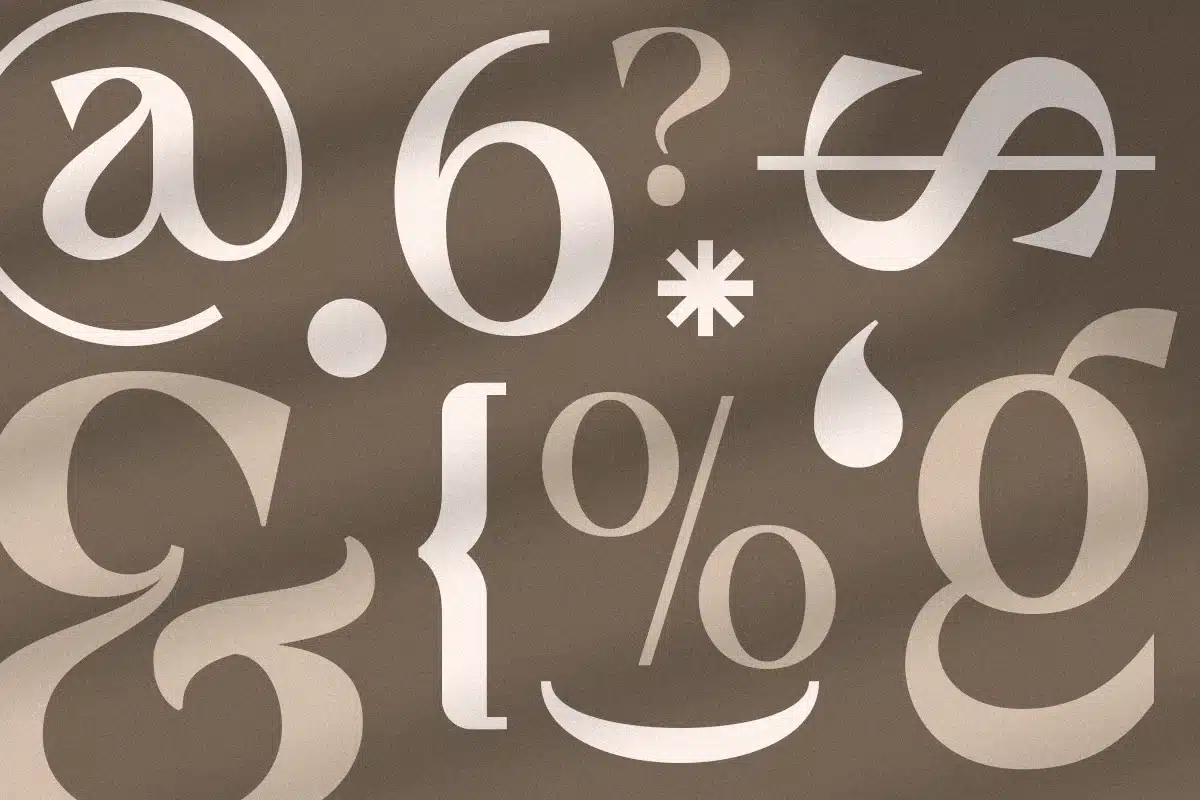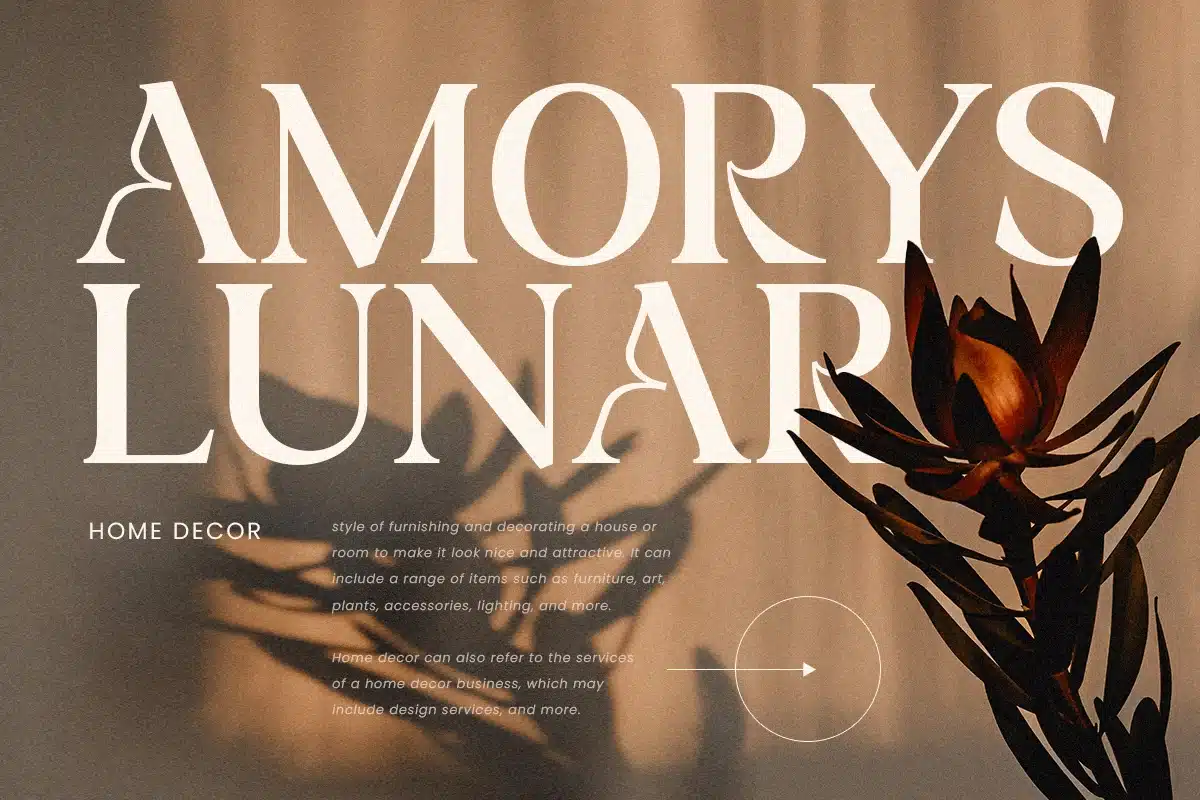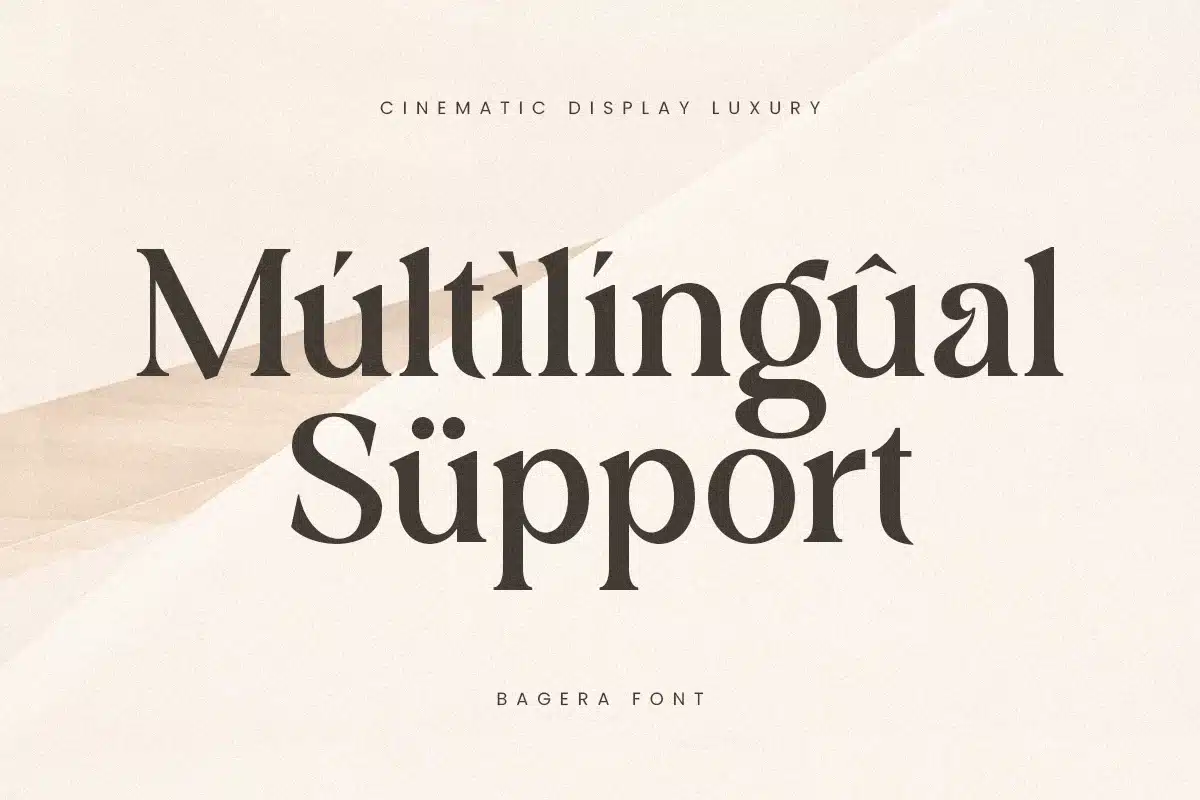
Bagera – Cinematic Display Luxury Font
Introducing Bagera, a cinematic display font that exudes luxury and sophistication. Perfect for high-end designs and creative projects, Bagera combines elegance with a touch of cinematic drama to make your work stand out.
The Story Behind Bagera:
Bagera was inspired by the glamour and elegance of classic cinema. Imagine the golden age of Hollywood, where every frame was a work of art and every title a masterpiece. This font captures that timeless sophistication, offering a luxurious and stylish look for your designs. Bagera is ideal for designers who want to create an aura of elegance and exclusivity in their work.
Bagera Font Features:
- Cinematic Design: Inspired by classic cinema, perfect for creating a dramatic impact.
- Luxurious Aesthetic: Combines elegance with a high-end look for sophisticated designs.
- Versatile Usage: Ideal for logos, branding, headlines, posters, and luxury-themed projects.
- High Legibility: Clear and readable, ensuring your message is communicated effectively.
- Elegant Appeal: Perfect for creating an aura of exclusivity and refinement.
Perfect For:
- Luxury Branding: Create elegant and memorable logos for high-end brands and businesses.
- Cinematic Projects: Design eye-catching movie posters, title sequences, and promotional materials.
- High-end Advertising: Develop stylish and sophisticated advertisements and marketing materials.
- Fashion and Lifestyle: Enhance fashion magazines, lookbooks, and lifestyle publications with a touch of glamour.
With Bagera, your designs will exude luxury and sophistication. Whether you're working on cinematic projects, luxury branding, or high-end advertising, Bagera provides the perfect blend of elegance and dramatic flair. Elevate your design projects with Bagera and bring a touch of cinematic luxury to your work.